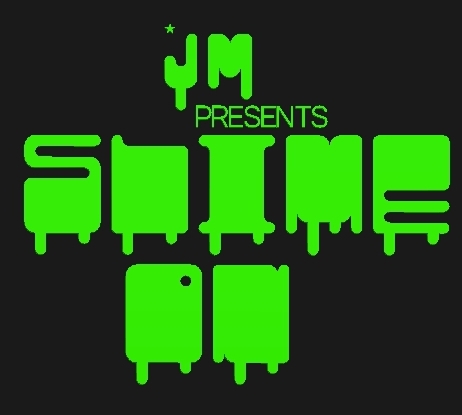
SPLASH,SPLASH!
I love this font! For a better chance of getting into the gallery, you should add numbers and lowercase letters; I think you can just change the placement of the drops for them to make the font look more realistic.